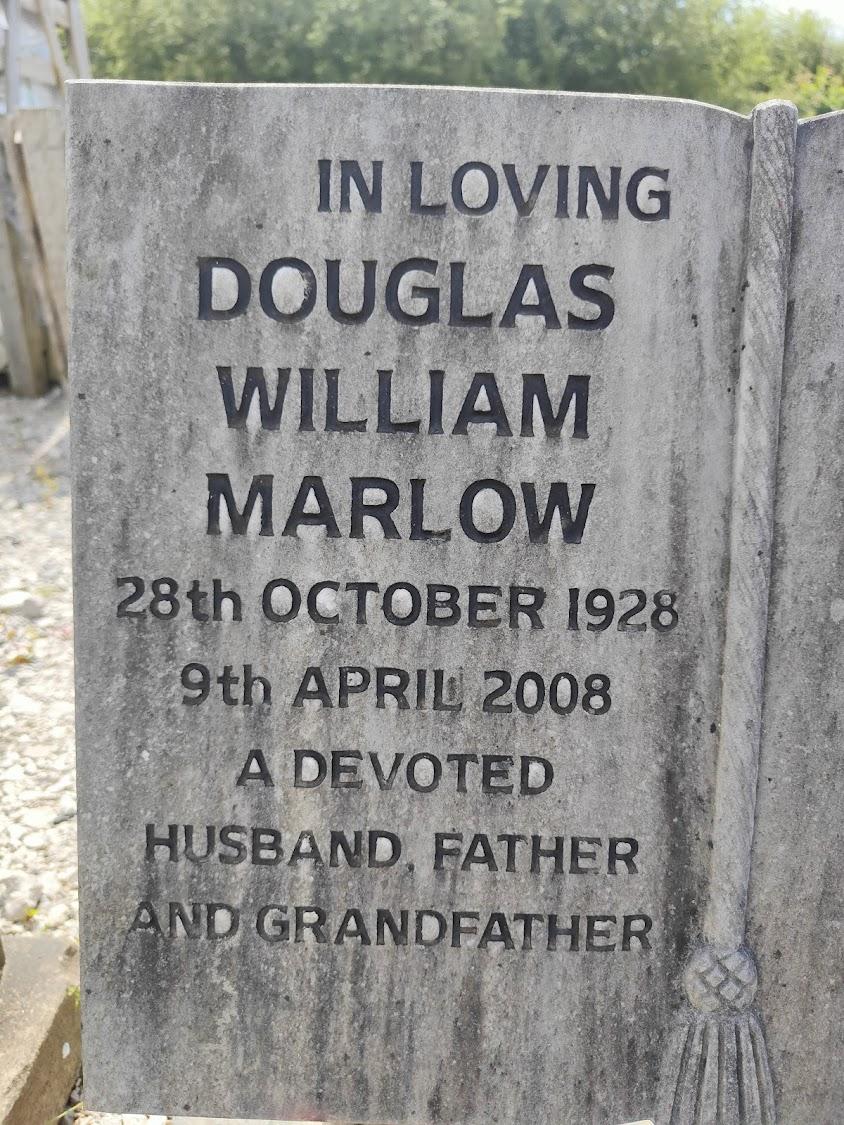
Font (serif? sans serif?)
This font seems to be related to Newtext but the horizontal bar in the G and E don’t have the same shape. Are there any modified versions? I have searched but can’t find any
I believe you are correct that this is a modified version of Newtext. The number 1 also appears to be different. It is possible it is a custom version modified by a specific monument company and not something you will find commercially available.